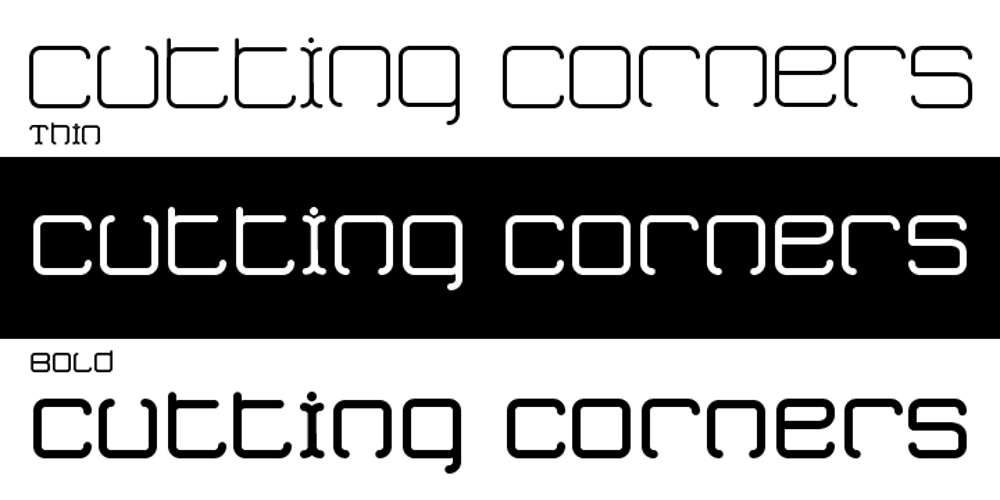
Cutting Corners
Cutting Corners font
Cutting Corners Font Family was designed by Randy Harris and published by Just My Type. Cutting Corners contains 3 styles and family package options. Cutting Corners is all about letters made of squares that also suggest circles. That’s it. This is one of several fonts I’ve created based upon a strictly geometric form; in this case, a round-cornered square. The width is equal to height (except for i, I and most punctuation). Usage recommendations: logos, samplers.